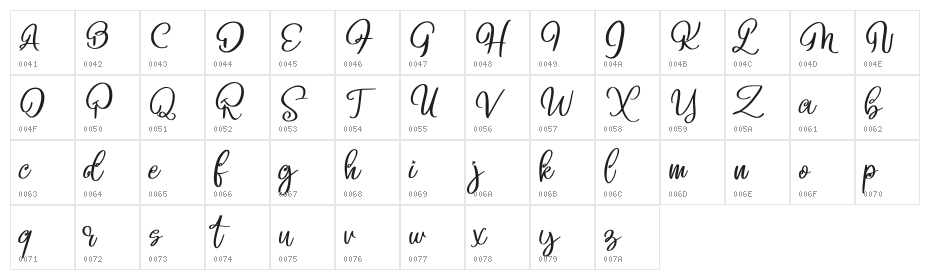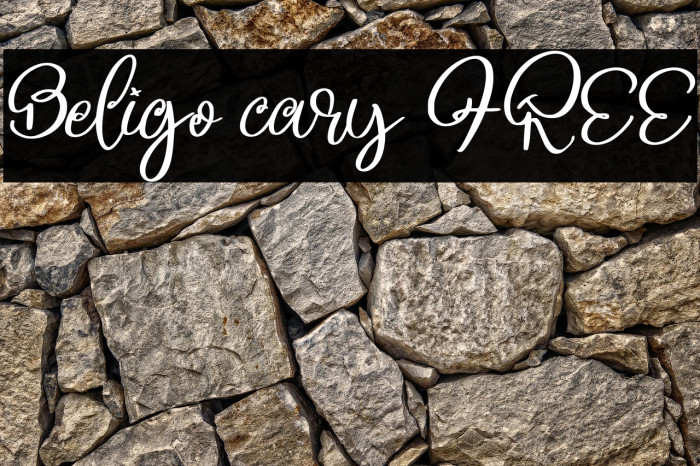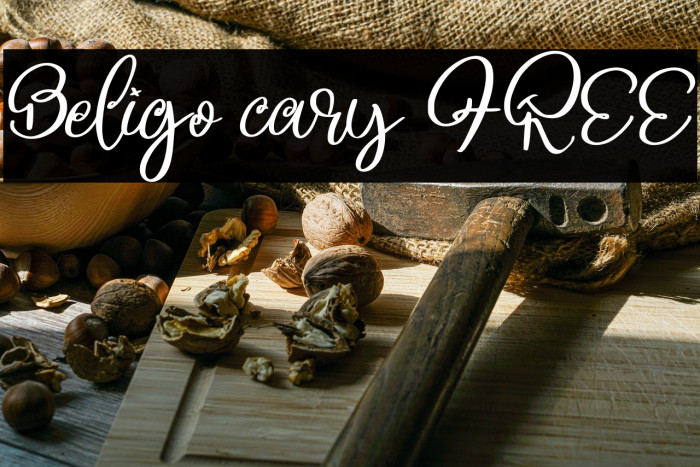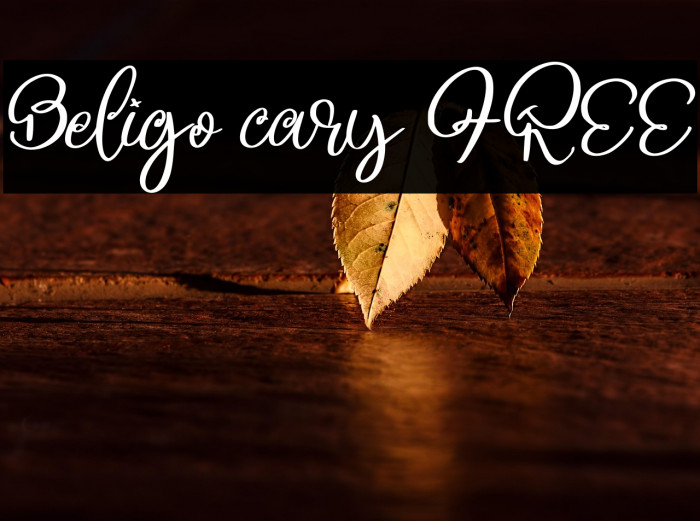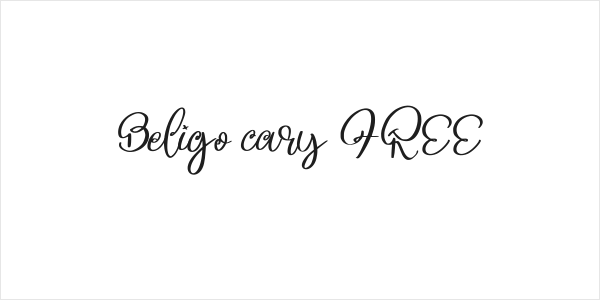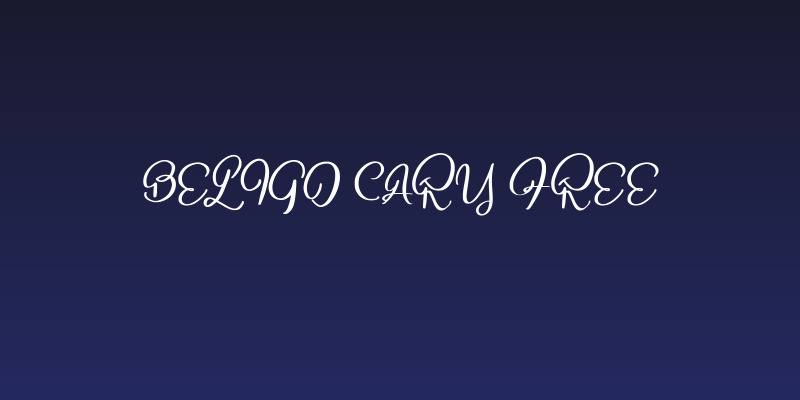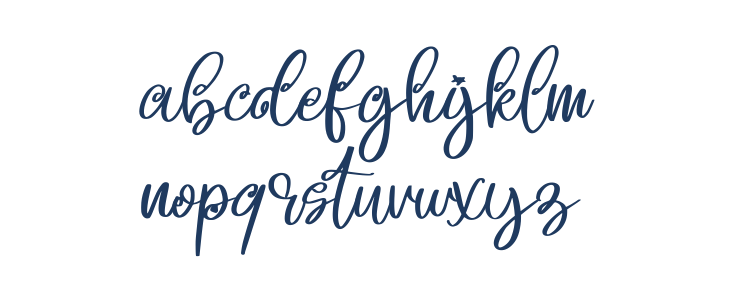
Beligo cary FREE Font
Beligo cary FREE Description
This font features a flowing, cursive style with elegant loops and swashes, giving it a handwritten appearance. The uppercase letters are bold and expressive, while the lowercase letters maintain a consistent fluidity. The characters are well-balanced, with a slight slant that enhances the script's dynamic feel. The font includes a full set of uppercase and lowercase letters, numbers, and a selection of special characters, making it versatile for various design needs. Its artistic flair is suitable for projects that require a personal touch or a sense of sophistication.